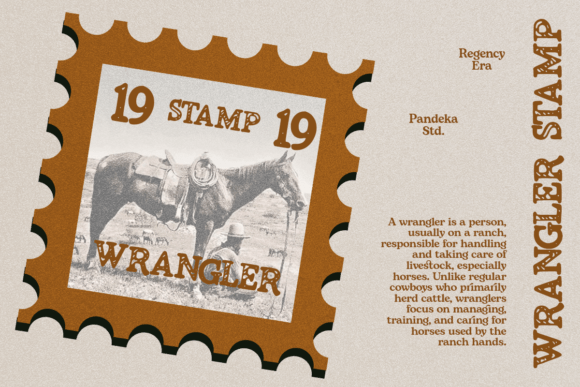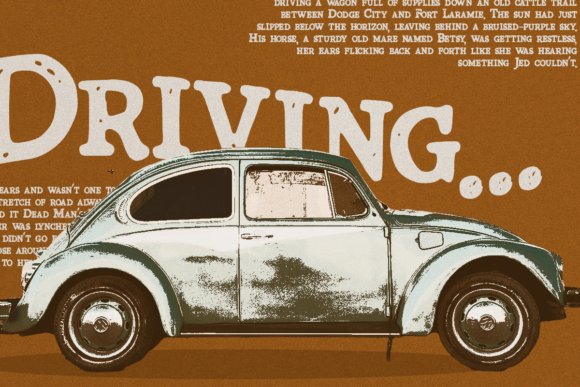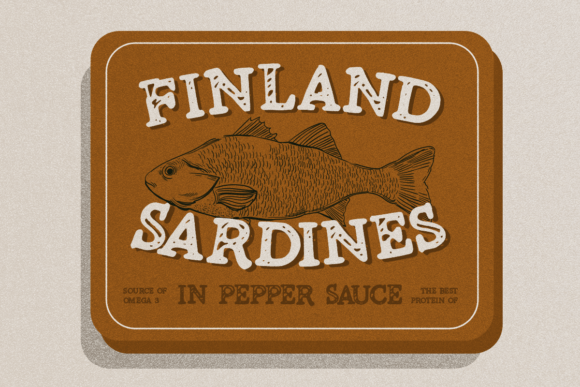
Chicaria Font: Retro Stamp Display Font for Unique Branding
About the Chicaria Font
Meet Chicaria Font, a stunning font that brings a touch of elegance and professionalism to any design. Chicaria – A bold vintage display font that combines classic typography with retro aesthetics and timeless elegance. Perfect for vintage-inspired designs, Chicaria adds a unique and playful touch to bold lettering, packaging, posters, and branding. Its rough stamp effect and elegant style make it a standout choice for projects that demand a mix of nostalgia and modern flair.
Chicaria Font Usage Examples
Chicaria Font Example